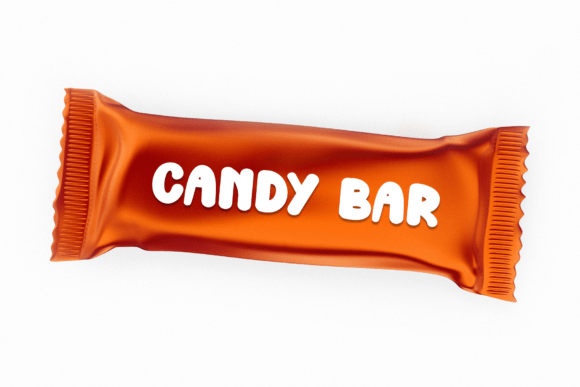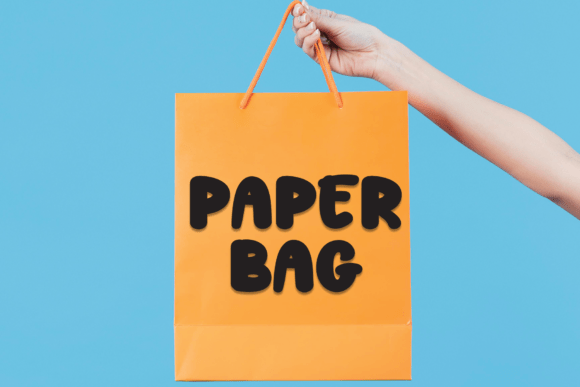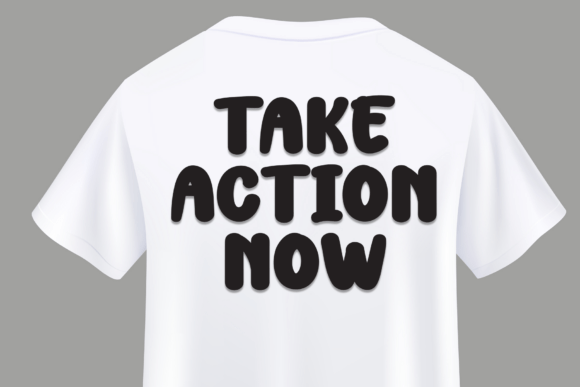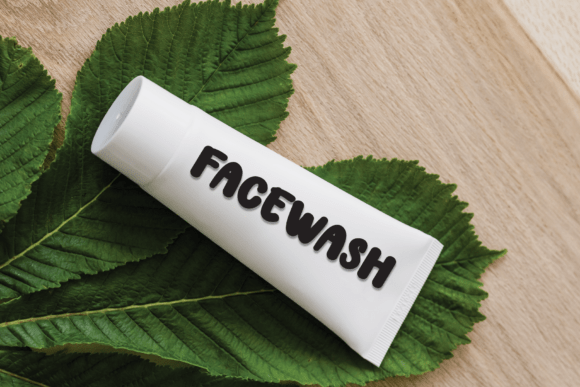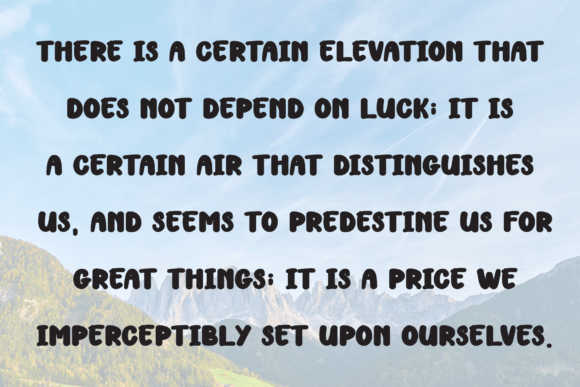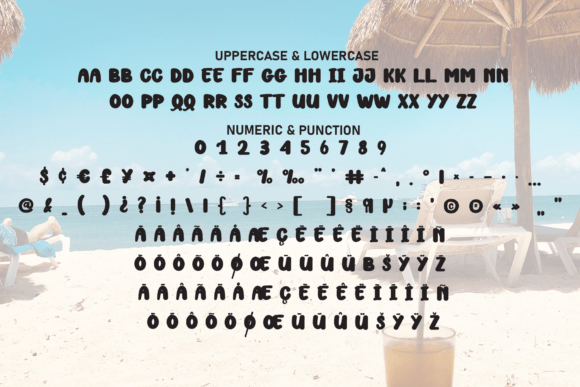
Introducing Beach Bright Font: The Perfect Blend of Freshness and Friendliness
In the world of typography, fonts play a crucial role in conveying the tone and personality of a brand or design. For designers and crafters looking for a font that exudes a sense of freshness and approachability, Beach Bright Font is an excellent choice. This casual and neat display font is designed to radiate a friendly vibe, making it perfect for a wide range of applications, from packaging and posters to social media graphics.
Clean Lines and Relaxed Structure: The Hallmark of Beach Bright Font
One of the standout features of Beach Bright Font is its clean lines and relaxed structure. The font’s design is characterized by a sense of simplicity and elegance, which gives it a polished appearance. The clean lines ensure that the text is easy to read, while the relaxed structure adds a touch of informality, making it perfect for designs that require a friendly and approachable tone.
Beach Bright Font is a versatile font that can be used in a variety of applications. Its fresh and friendly vibe makes it perfect for:
- Packaging: Add a touch of personality to your product packaging with Beach Bright Font. The font’s clean lines and relaxed structure make it perfect for labeling products, creating brand identity, and standing out on store shelves.
- Posters: Create eye-catching posters with Beach Bright Font that grab attention and convey your message with clarity. The font’s friendly vibe makes it perfect for promoting events, products, or services.
- Social Media Graphics: Use Beach Bright Font to create engaging social media graphics that resonate with your audience. The font’s approachable design adds charm and clarity to your graphics, making them perfect for sharing on social media platforms.
The Benefits of Using Beach Bright Font
So, why choose Beach Bright Font for your design projects? Here are some benefits of using this versatile font:
- Fresh and Friendly Vibe: Beach Bright Font radiates a fresh and friendly vibe that resonates with audiences of all ages.
- Clean and Readable: The font’s clean lines and relaxed structure make it easy to read, even at small sizes.
- Versatile: Beach Bright Font can be used in a variety of applications, from packaging and posters to social media graphics.
- Polished Appearance: The font’s design is characterized by a sense of simplicity and elegance, giving it a polished appearance that adds professionalism to your designs.
Tips for Using Beach Bright Font Effectively
To get the most out of Beach Bright Font, here are some tips for using it effectively in your design projects:
- Pair it with Other Fonts: Beach Bright Font pairs well with other fonts, especially those with a more formal or elegant design. This creates a nice contrast and adds visual interest to your designs.
- Use it in Large Sizes: Beach Bright Font is perfect for large sizes, such as headlines or titles. Use it to grab attention and create a lasting impression.
- Experiment with Colors: Beach Bright Font looks great in a variety of colors, from bright and bold to pastel and soft. Experiment with different colors to find the one that works best for your design.
Beach Bright Font is a versatile and fresh font that is perfect for designers and crafters looking for a friendly and approachable typography solution. With its clean lines, relaxed structure, and polished appearance, it’s perfect for a wide range of applications, from packaging and posters to social media graphics. By following the tips outlined above, you can use Beach Bright Font to create stunning designs that resonate with your audience.